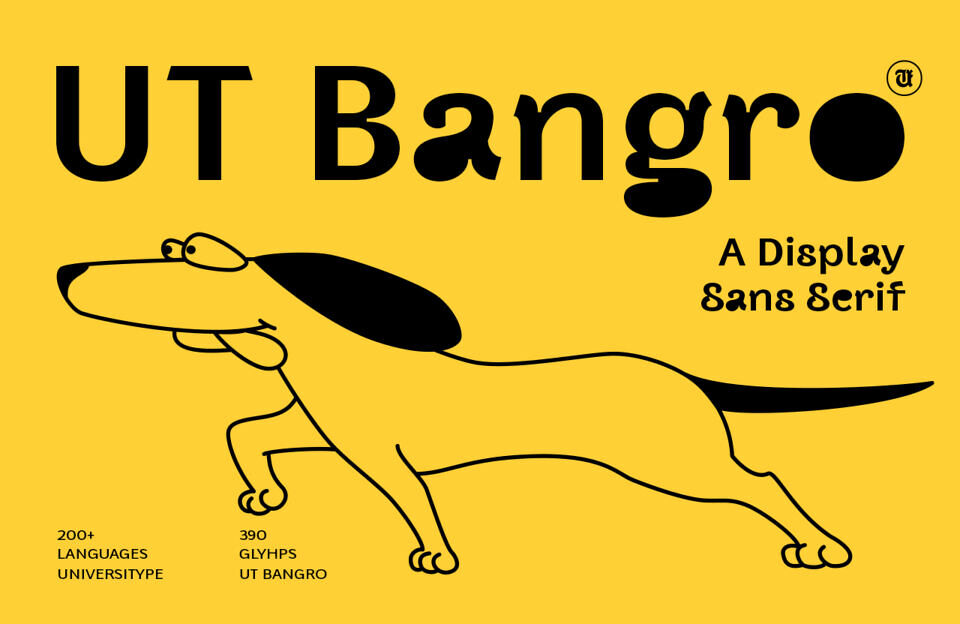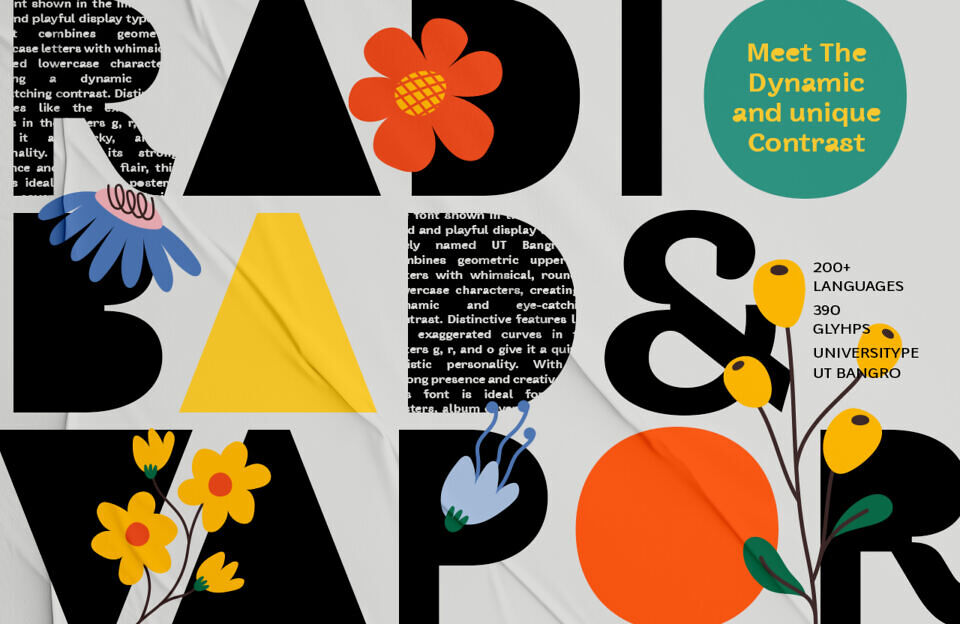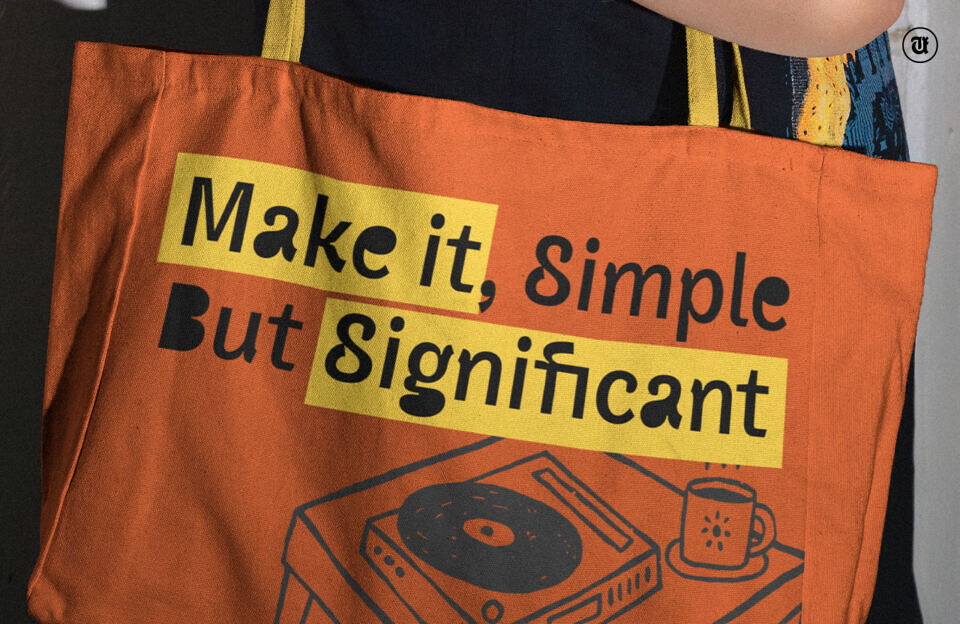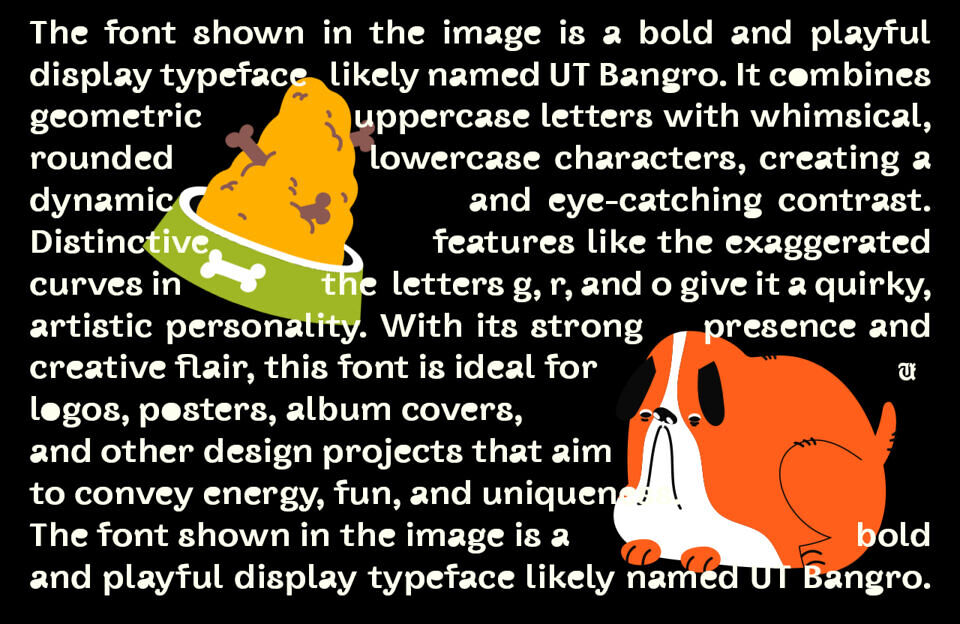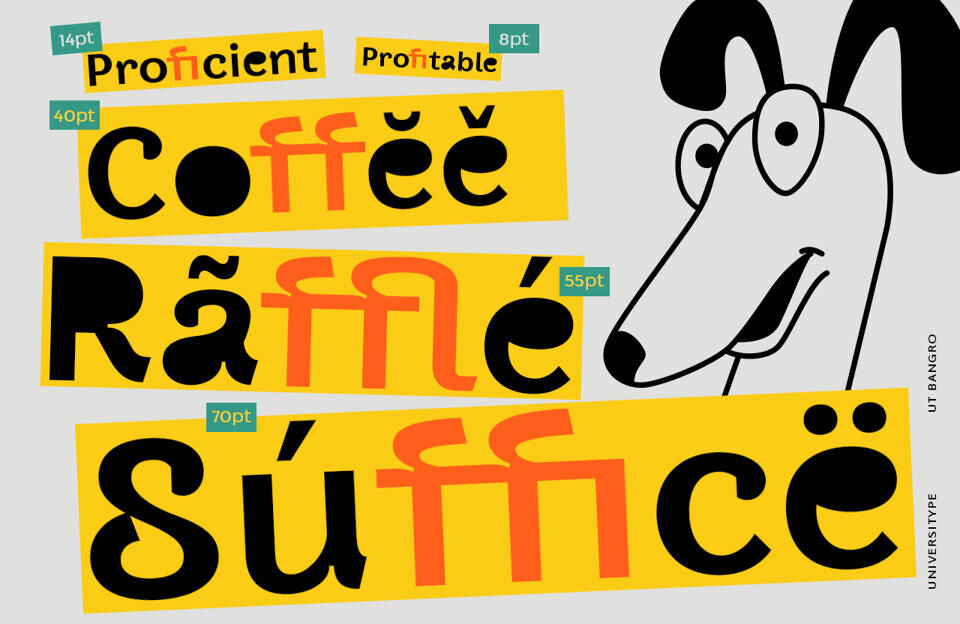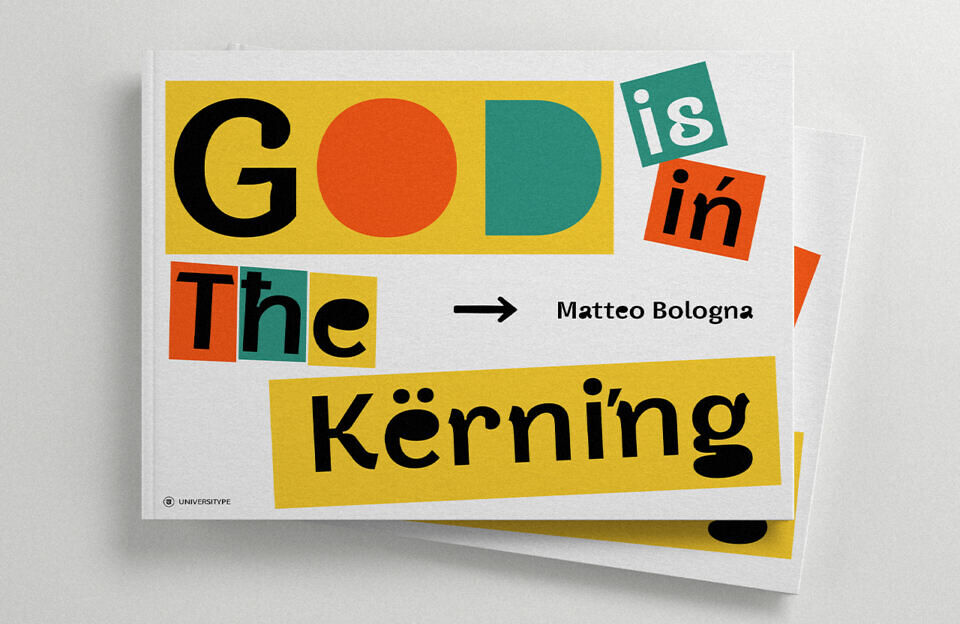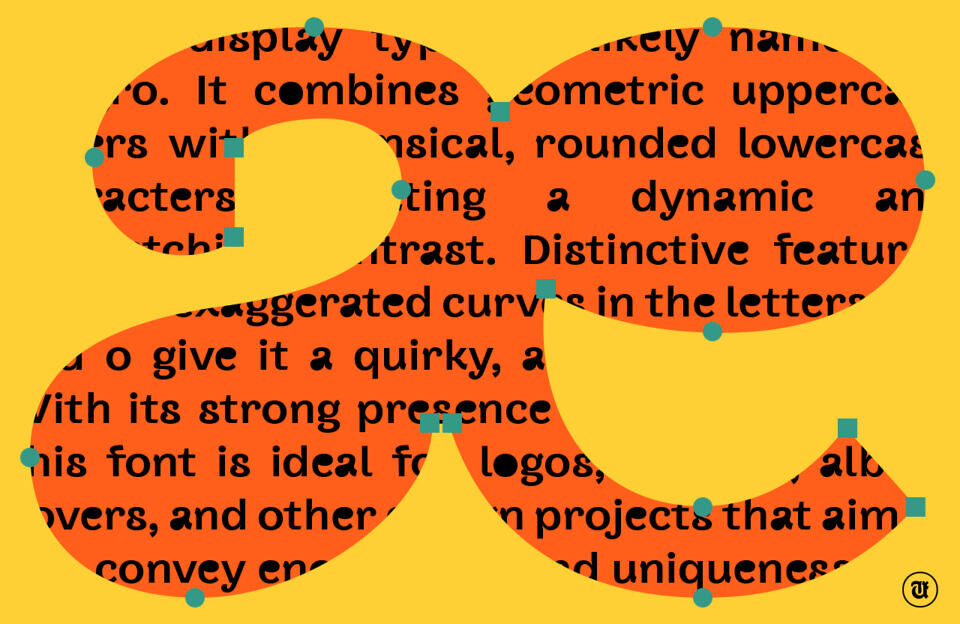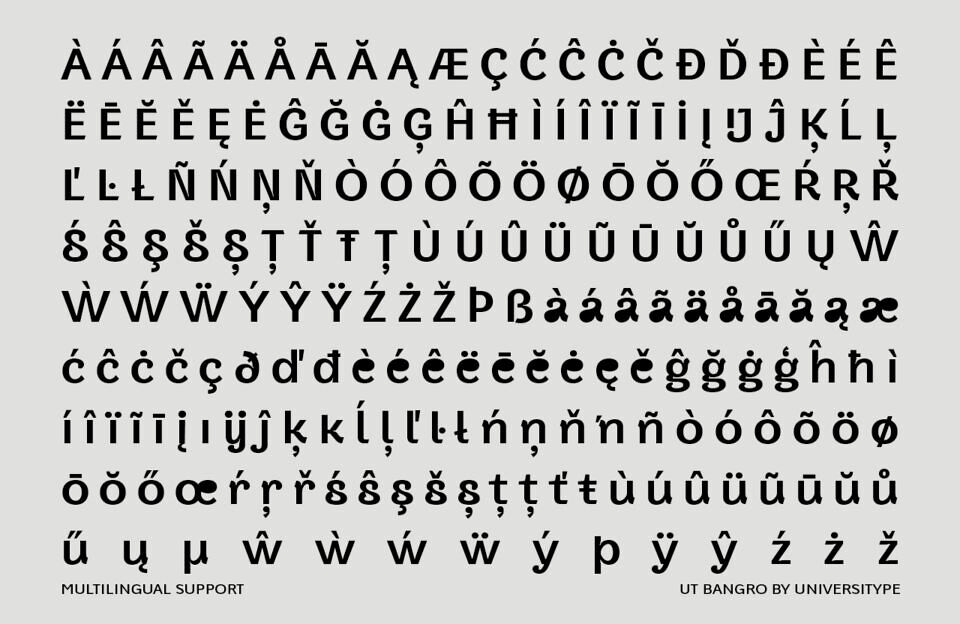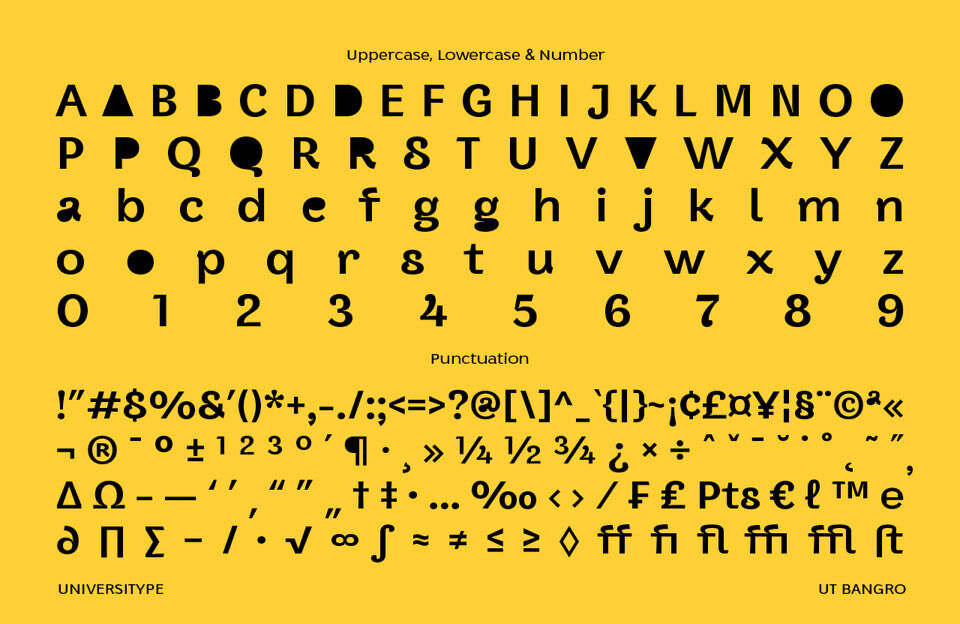
UT Bangro is a bold display sans serif that combines playful energy with confident structure. Every curve, notch, and terminal has been carefully crafted to bring your words to life. It’s a typeface that doesn’t just speak—it shouts, dances, and smiles.
UT Bangro was designed for standout moments. Whether it’s a brand identity, editorial spread, poster design, or product label, this font adds instant charm and visual rhythm. The unique detailing and expressive alternates make it versatile, lively, and full of personality—without ever sacrificing legibility.